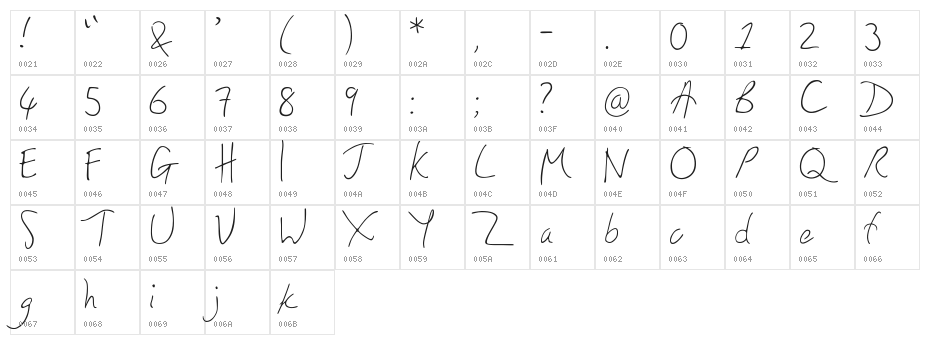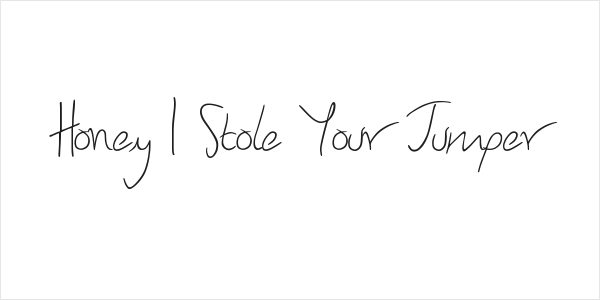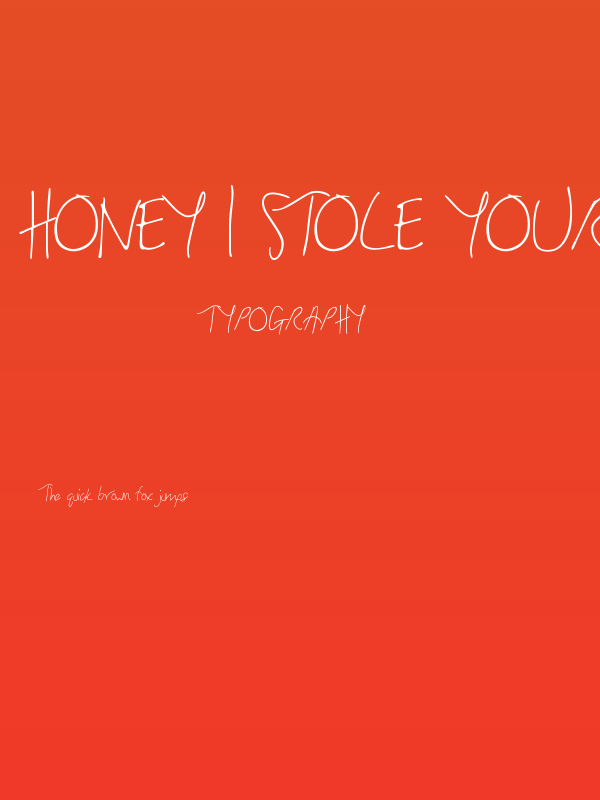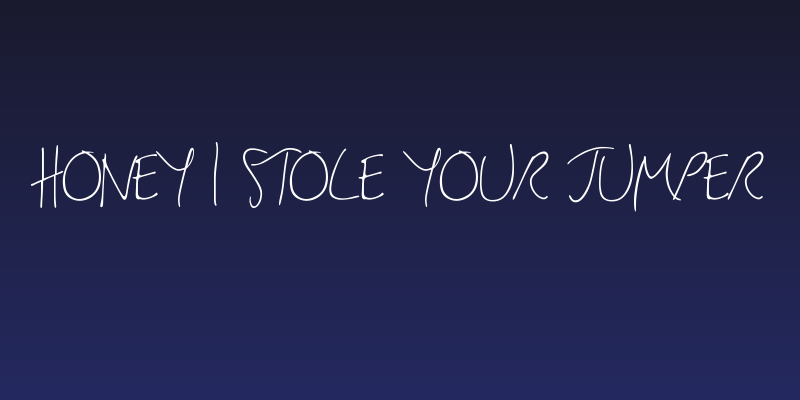
Honey I Stole Your Jumper Font
Honey I Stole Your Jumper Description
This playful and whimsical font features a handwritten style with a casual, flowing appearance. The letters are slightly slanted, giving a sense of movement and energy. The strokes vary in thickness, adding a dynamic and lively feel to the text. The uppercase and lowercase letters maintain a consistent style, with rounded edges and a smooth, continuous flow. The numbers and special characters complement the overall design, making it versatile for various uses. The font's informal and friendly nature makes it ideal for creative projects that require a personal touch.
| Use Case | Headlines, Creative projects, Personal branding |
| Proposed Projects | Ideal for greeting cards, invitations, personal blogs, and creative branding projects. |